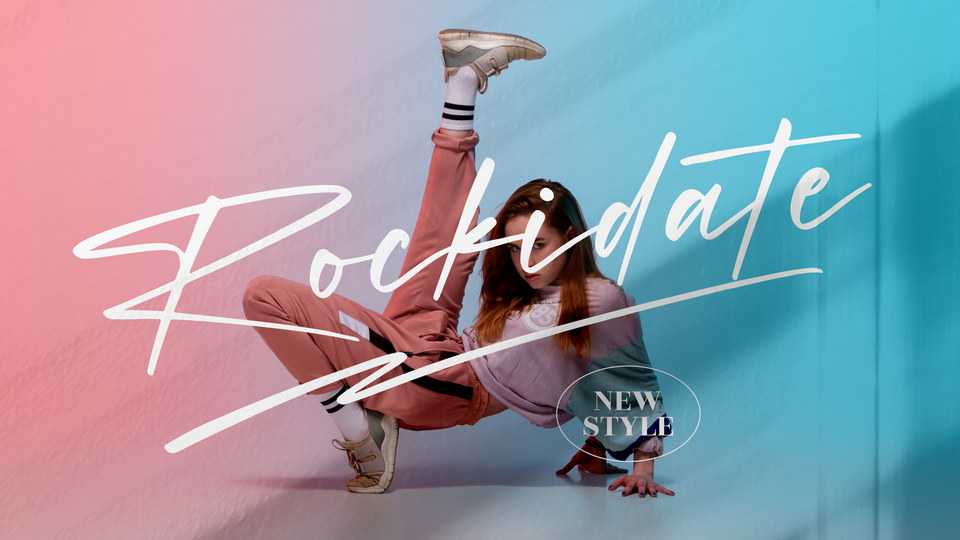
Download Rockidate font, a stylish and dynamic script typeface that embodies elegance and charm in every character. Rockidate is perfect for logos, ads, quotes, and other projects that require a personal, authentic look.
Designer: Perspectype Studio